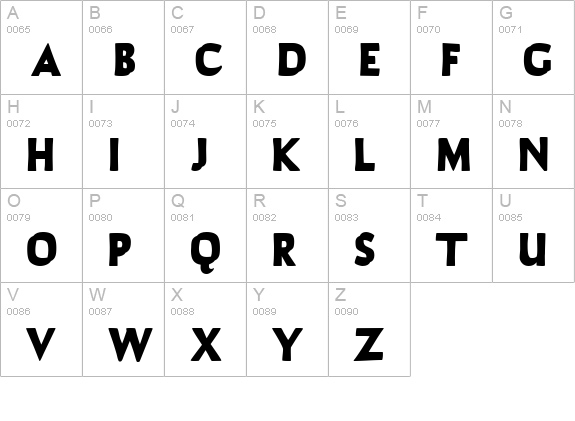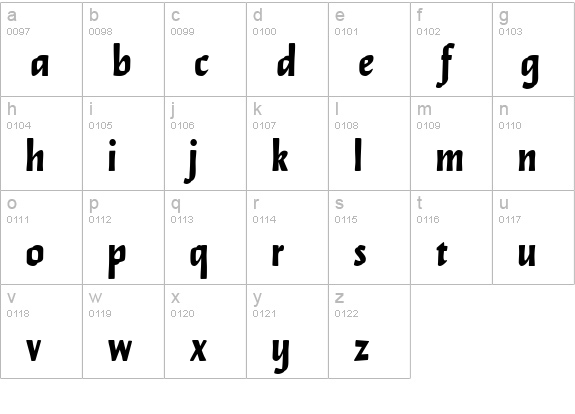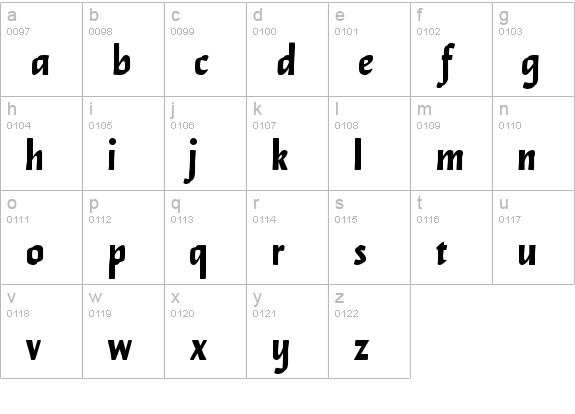
Lapis Lazuli Bold Font Details
Lapis Lazuli Bold is a strong, high-contrast variant in the Lapis typeface family \xE2\x80\x94 well suited to headlines, attention-grabbing titles, and strong calls-to-action.
Lapis Lazuli Bold is a striking and versatile font that exudes confidence and elegance. With its bold and commanding presence, this typeface is perfect for making a statement in your designs. The clean lines and sharp edges of Lapis Lazuli Bold give it a modern and sophisticated look that will elevate any project. And the best part? Lapis Lazuli Bold is completely free to download at FontsMarket.com! Whether you're working on a branding project, a poster design, or any other creative endeavor, this font is sure to make a bold impact. Don't miss out on the opportunity to add Lapis Lazuli Bold to your font collection today!